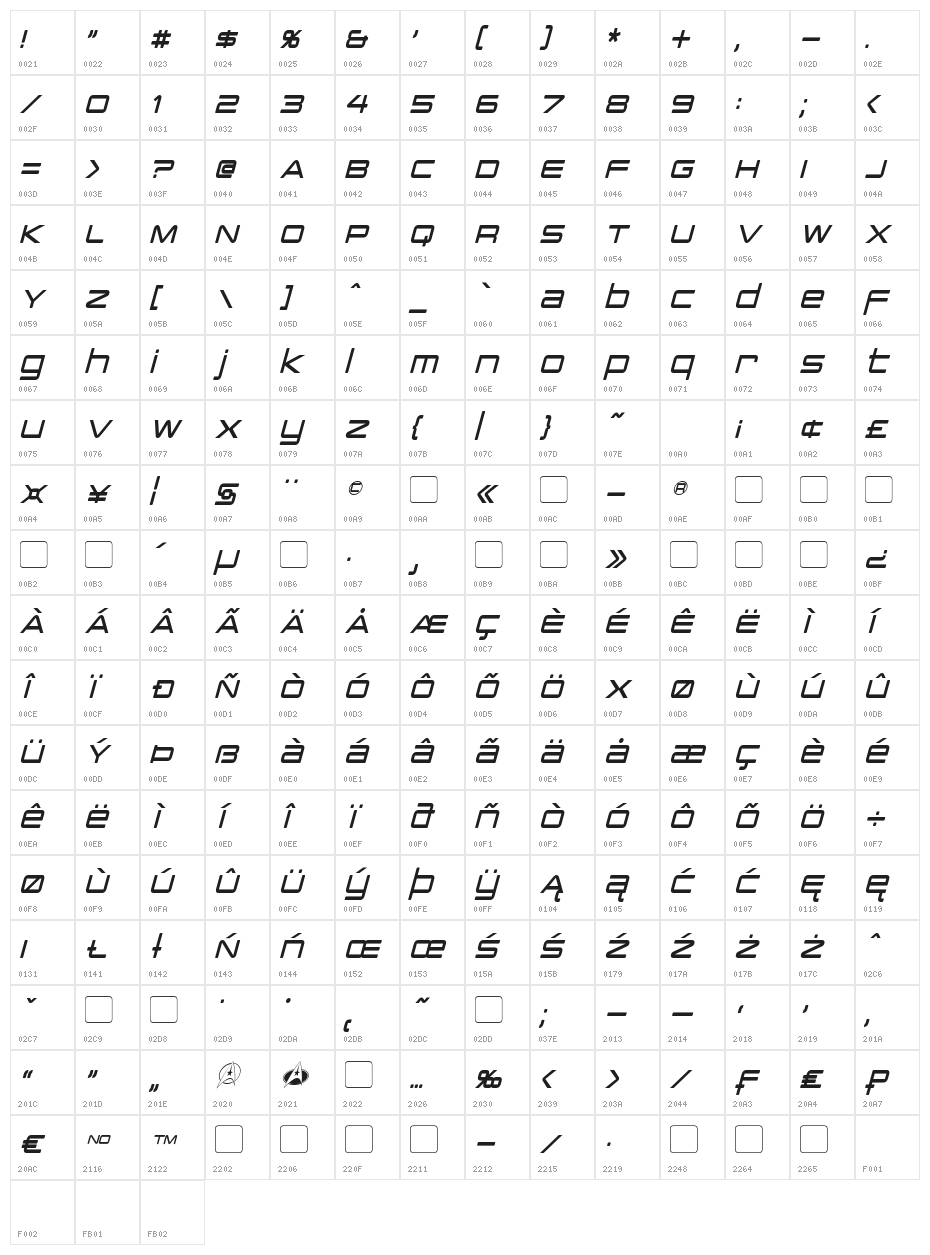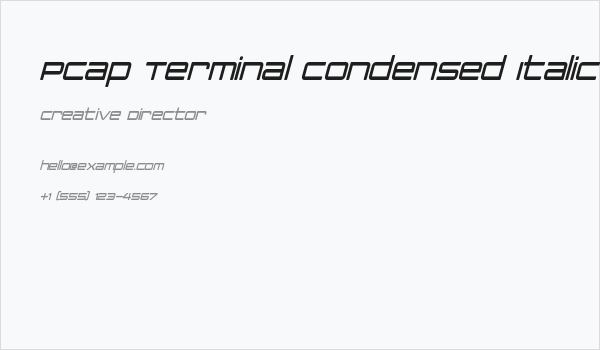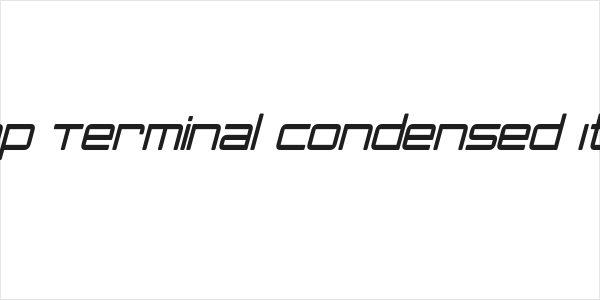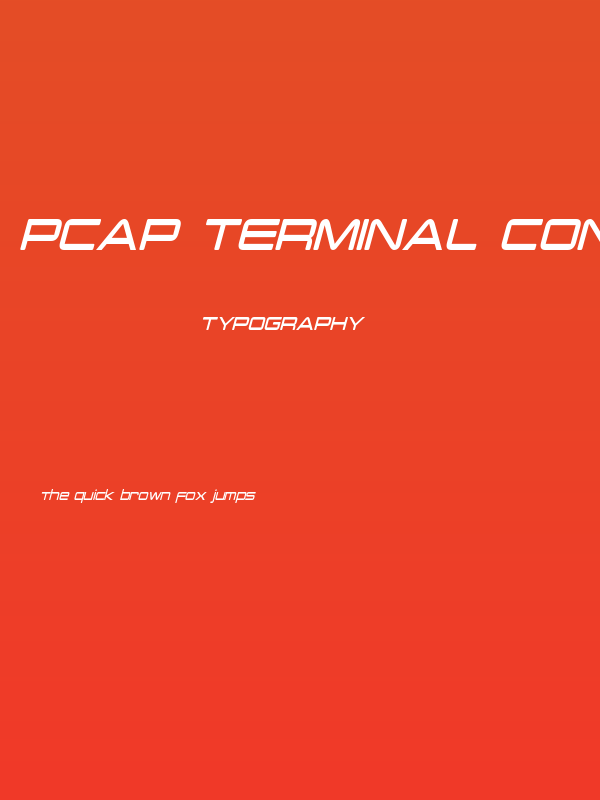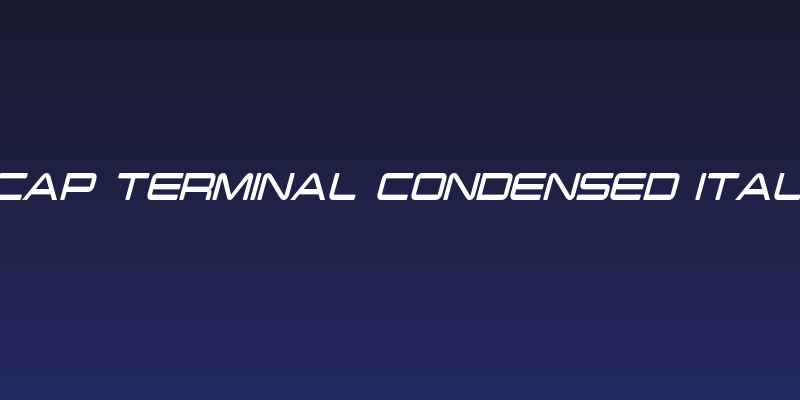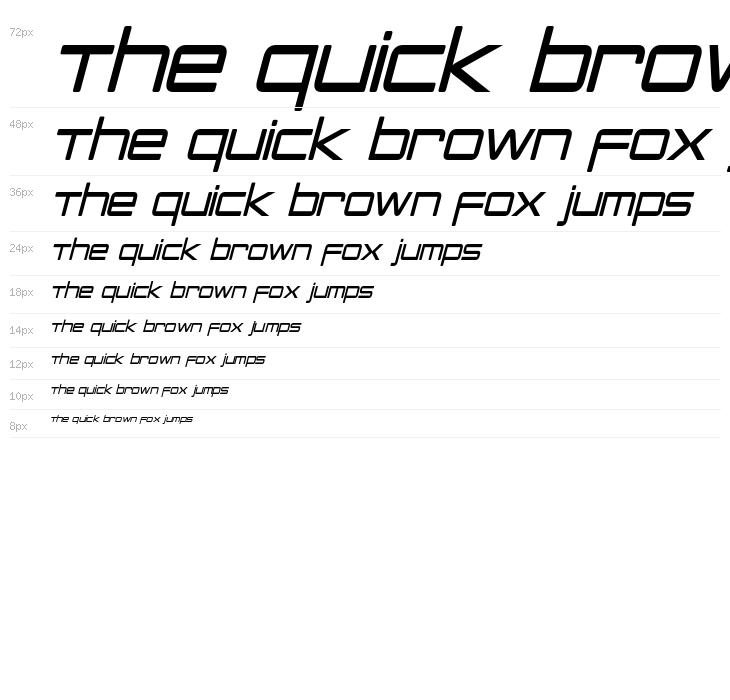
PCap Terminal Condensed Italic Font
PCap Terminal Condensed Italic Description
This font features a sleek, modern design with a condensed and italicized style. The characters are slightly slanted, giving a dynamic and forward-moving appearance. The strokes are consistent in thickness, providing a uniform look across all characters. The font maintains a clean and professional aesthetic, suitable for various digital and print applications. Its condensed form allows for efficient use of space, making it ideal for projects where space is limited. The italic style adds a touch of elegance and sophistication, enhancing its visual appeal.
| Use Case | Headlines, Logos, Digital Interfaces |
| Proposed Projects | Ideal for tech-related branding, modern web design, digital interfaces, and print media where space efficiency is crucial. |